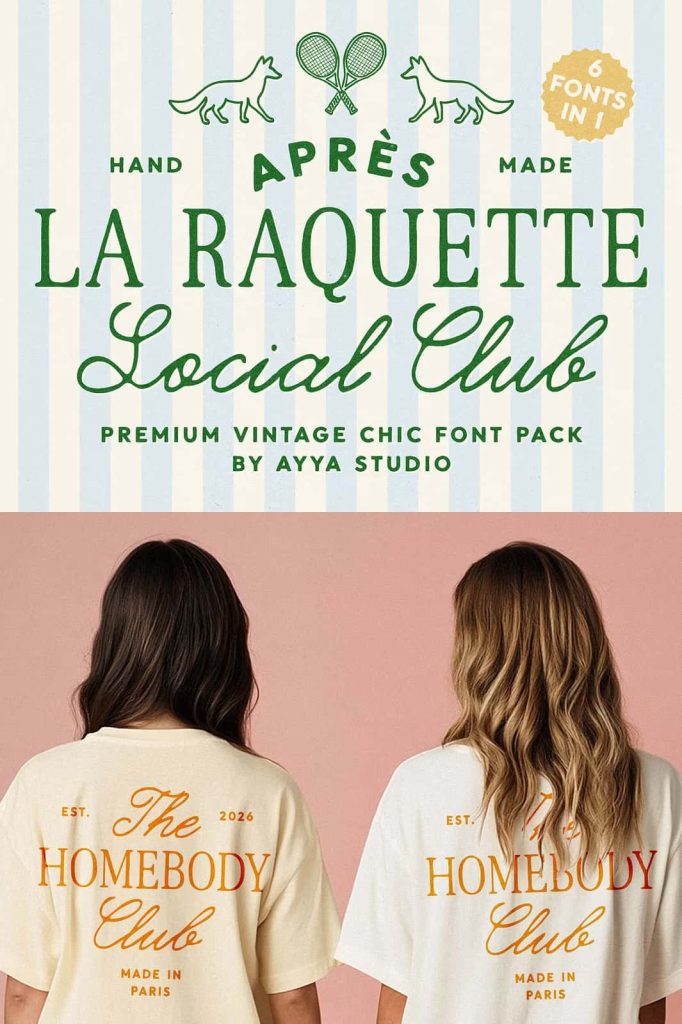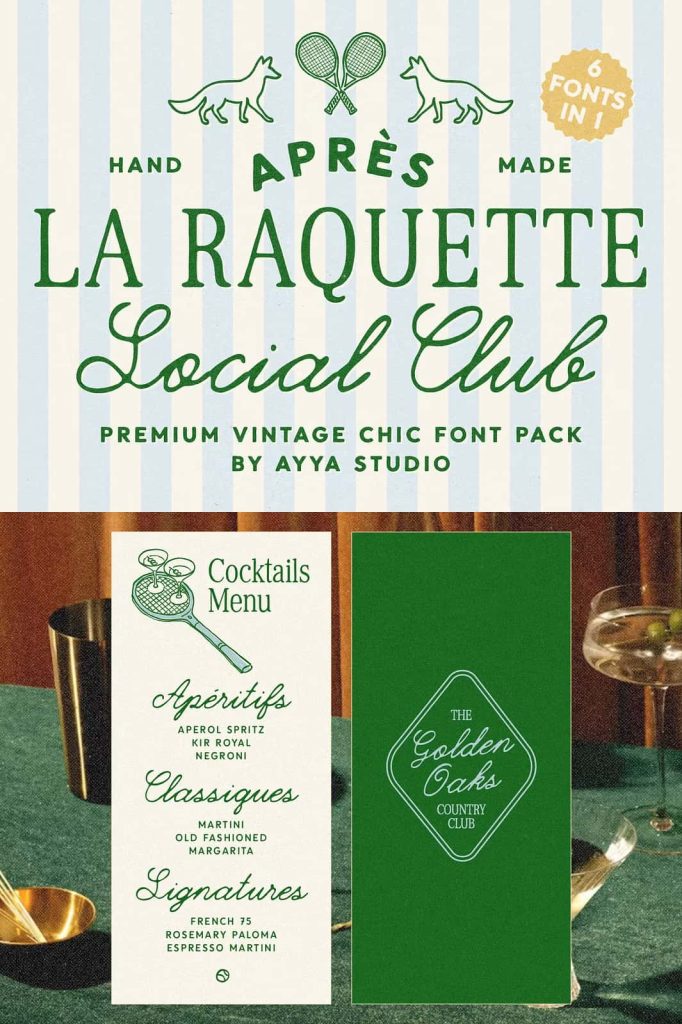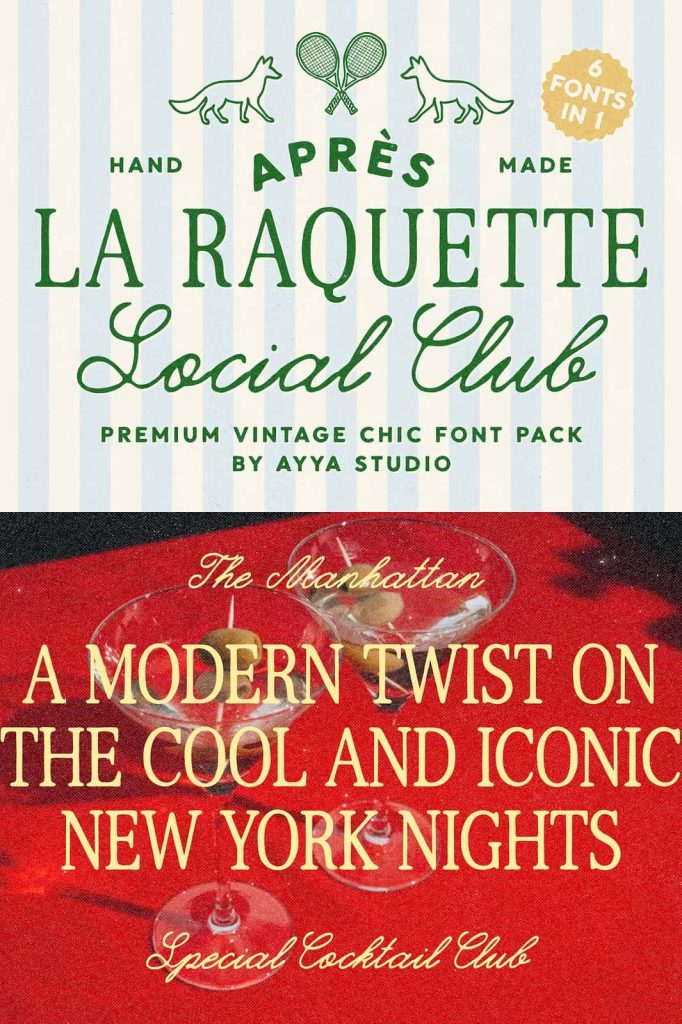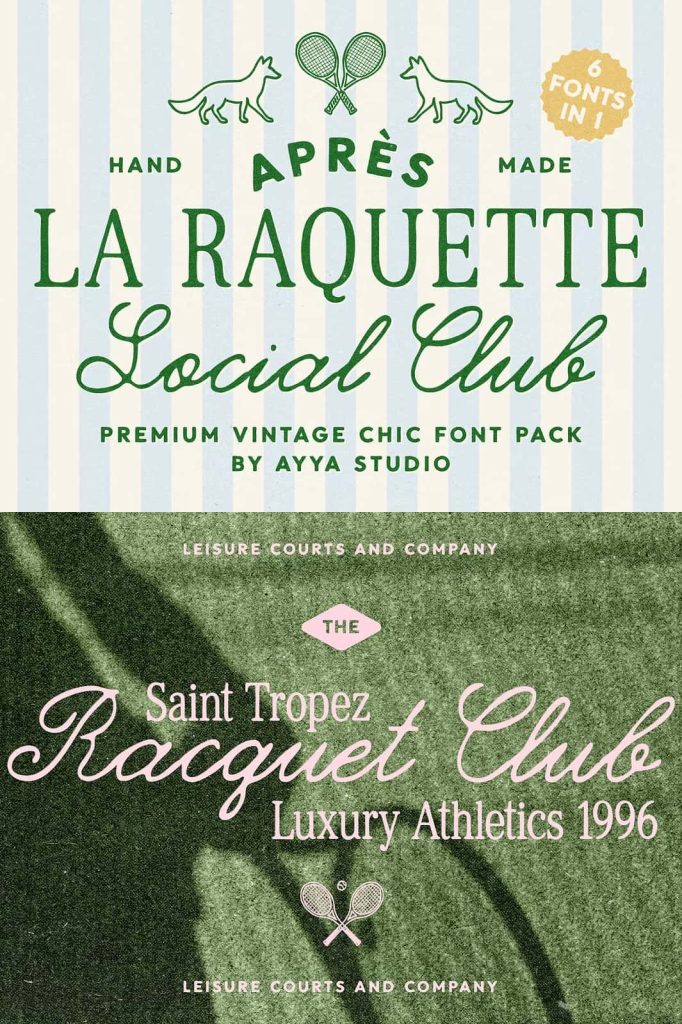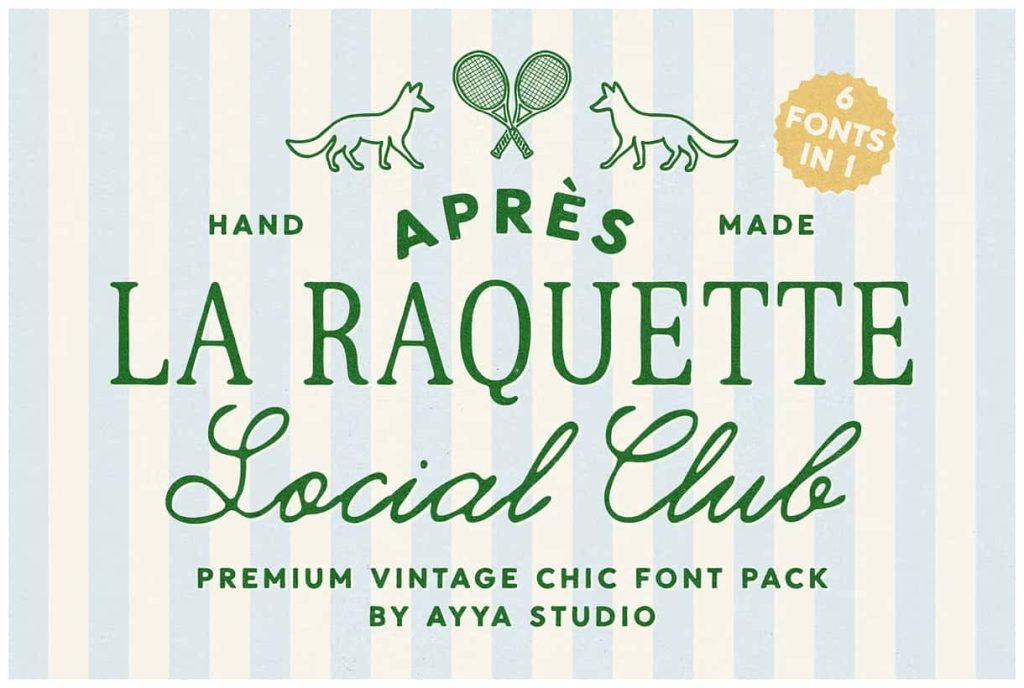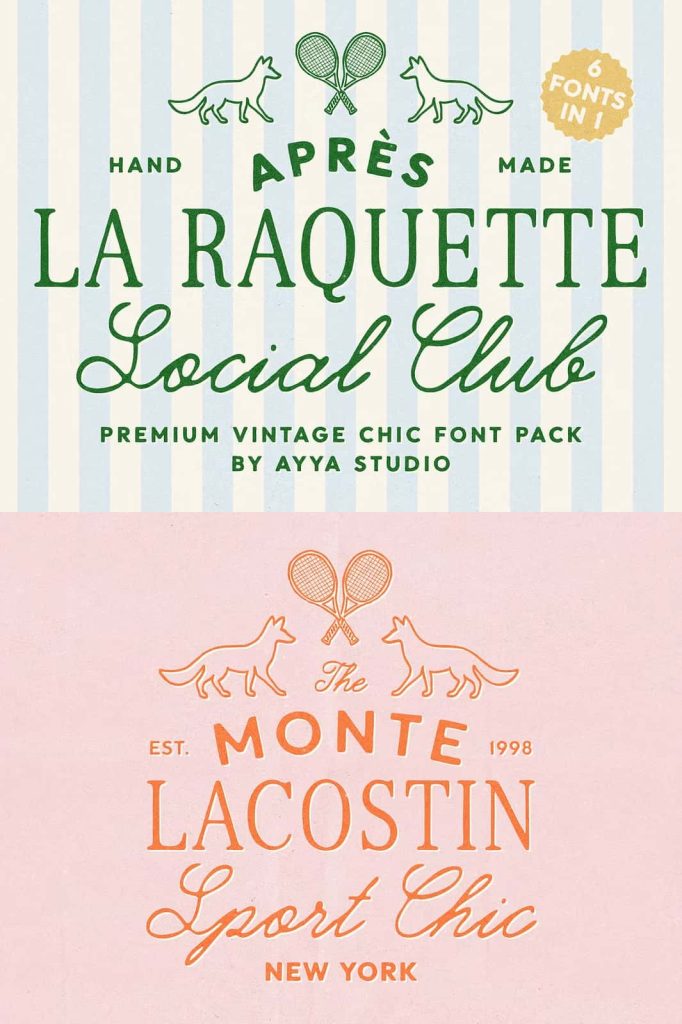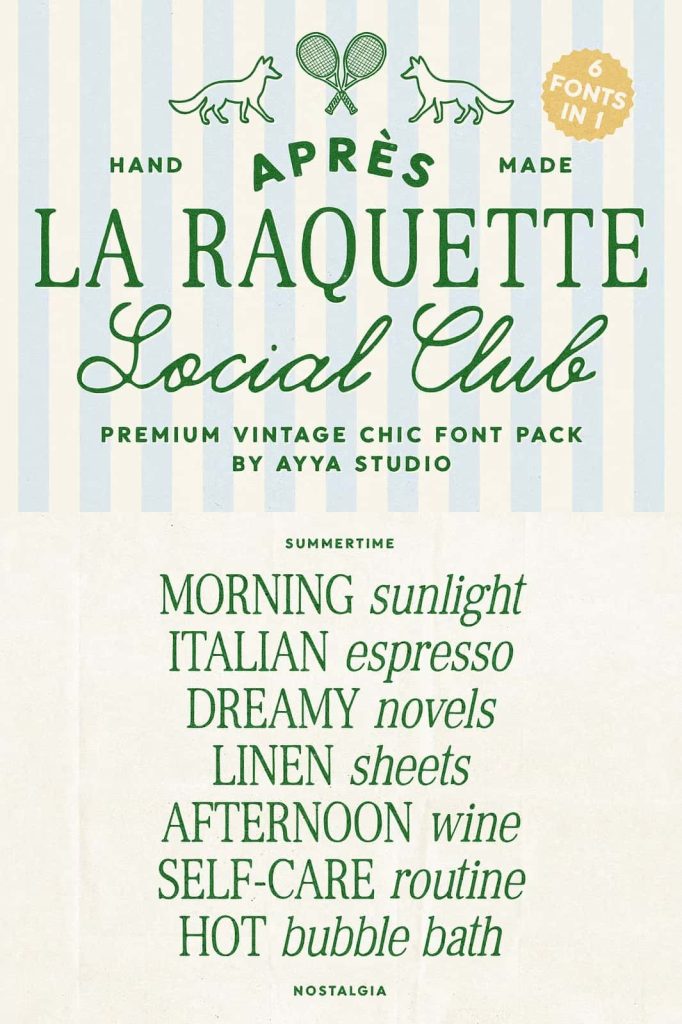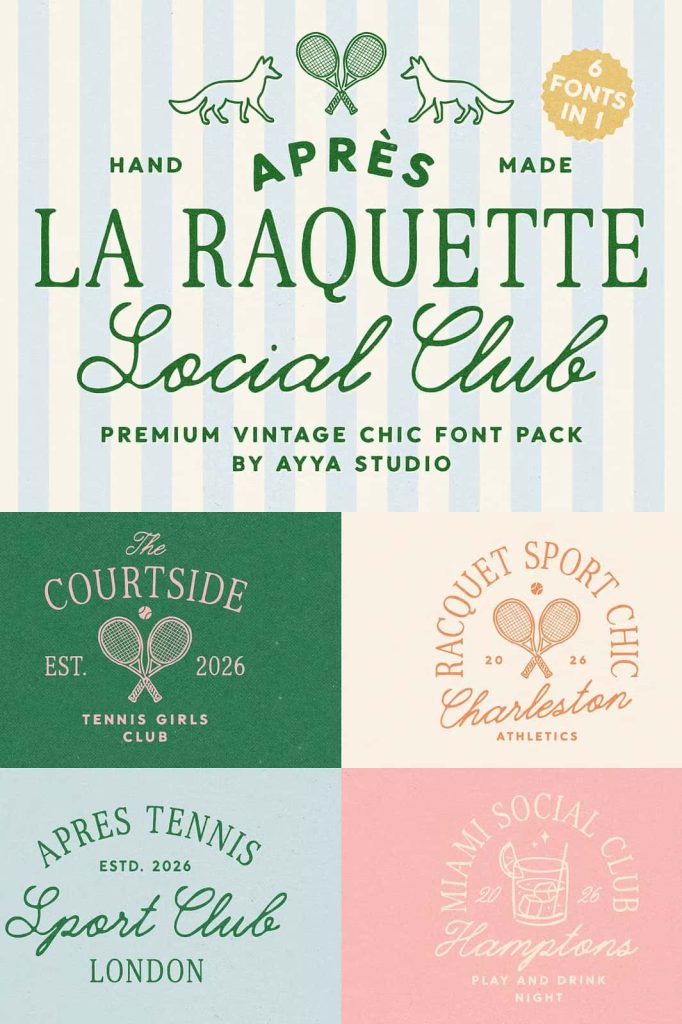
Après La Raquette Social Club is not just another handwritten font bundle – it’s a whole family of 6 typefaces that live together like members of a private club. Each font has its own voice, but together they create a system you can mix, match, and layer for endless variations.